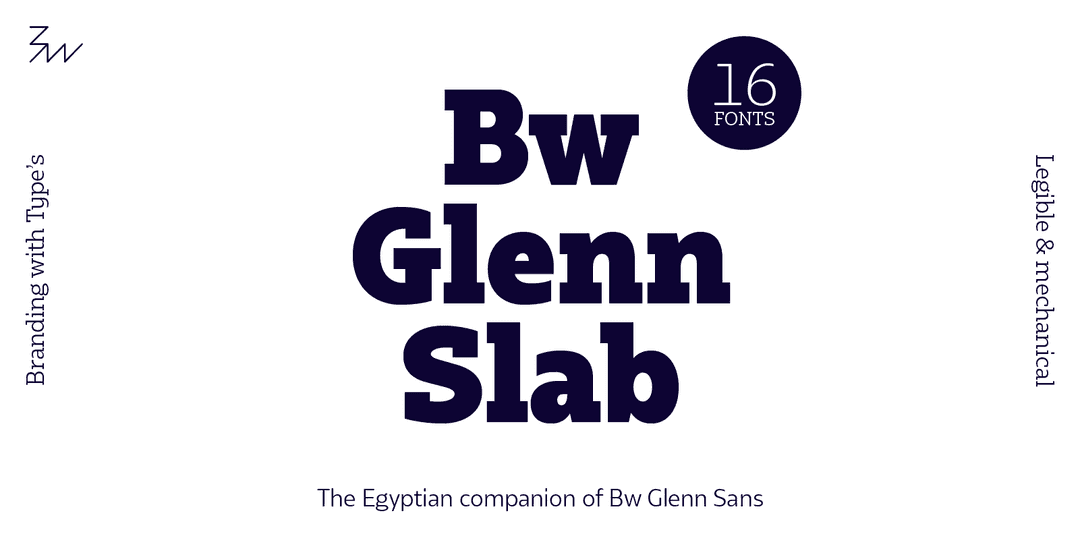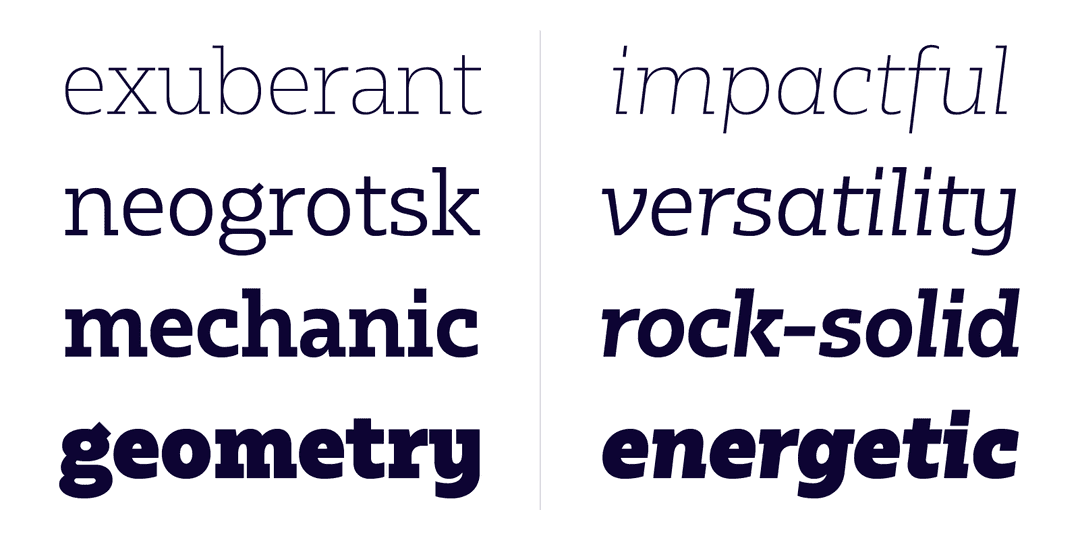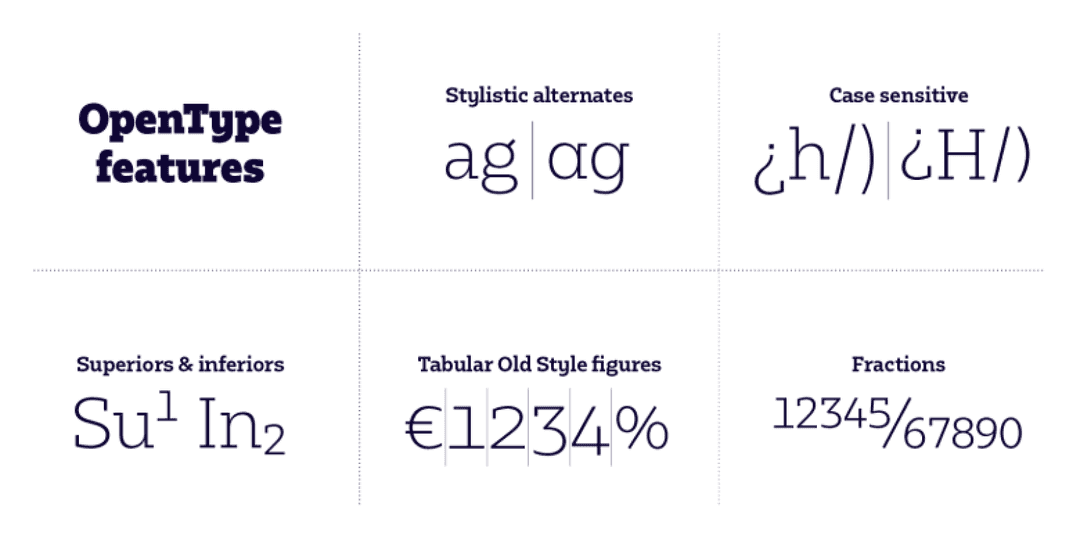
Bw Glenn Font Slab Family exudes strength and certainty, with no concessions to ambiguity. Its open shapes and strict geometry create a clean and legible text texture suitable for screens as well as print. Bw Glenn Font Slab serves as the Egyptian counterpart to Bw Glenn Sans; both families share similar x-height, modulation, and production times.